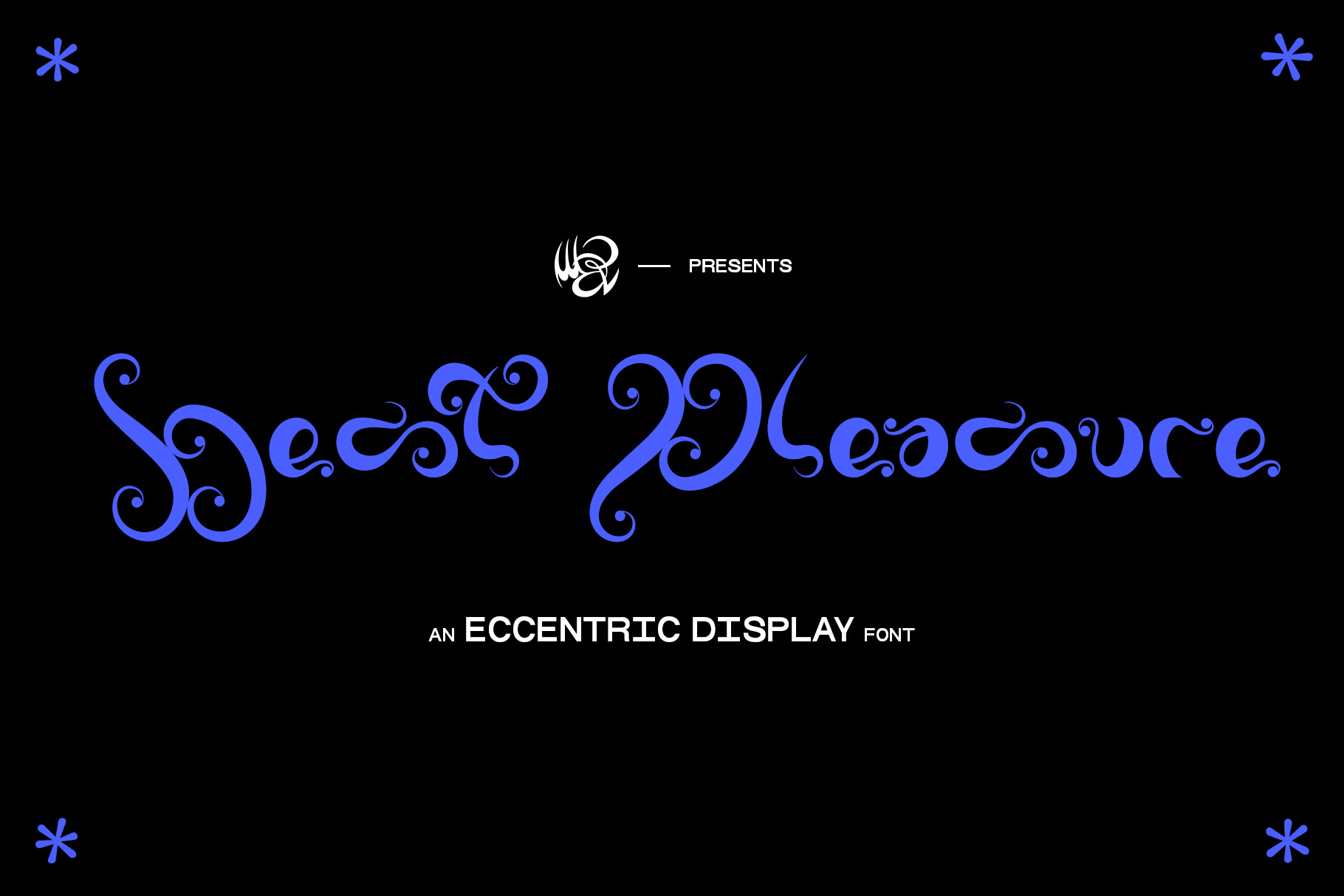
BEST PLEASURE eccentric display font
BEST PLEASURE is a new eccentric display typeface full of all 26 characters and numbers.
Best pleasure is heavily inspired by Willy Wonka's chocolate factory and all productions and arts from the liberty movement. It is sinuous and it's curvy with variable sized lines, it has a very crazy feel made by the different size of the letters. It is not perfect to write normal lines of text but it is awesome to create big headlines, headers, posters, merch and for logos too. I find it amazing to create patterns with it. If you want to create a design for candies or chocolate bars or just something elegant but crazy at the same time this is the font for you!